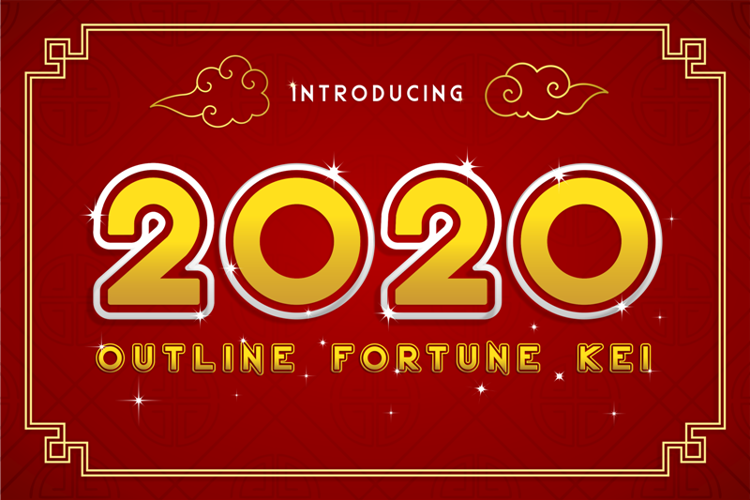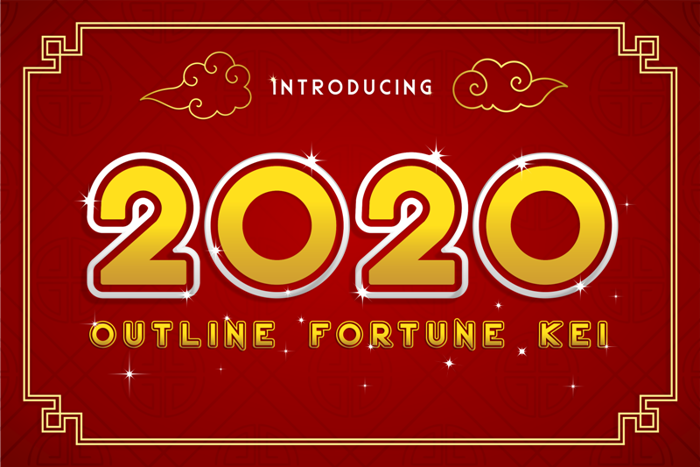
2020 Outline Fortune Kei Font
2020 Outline Fortune Kei display font is a new font look with the feel of a new 2020 year full of fortune with an outline style, perfect for an extraordinary new year's project.